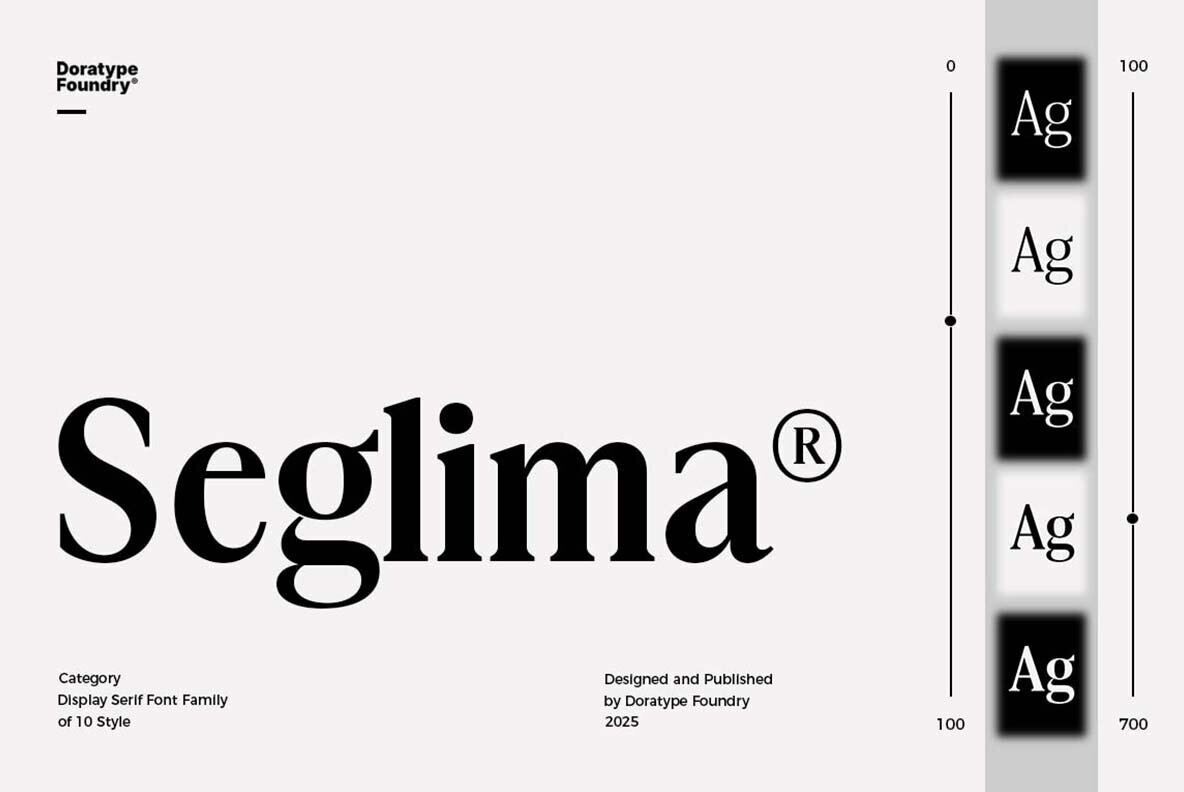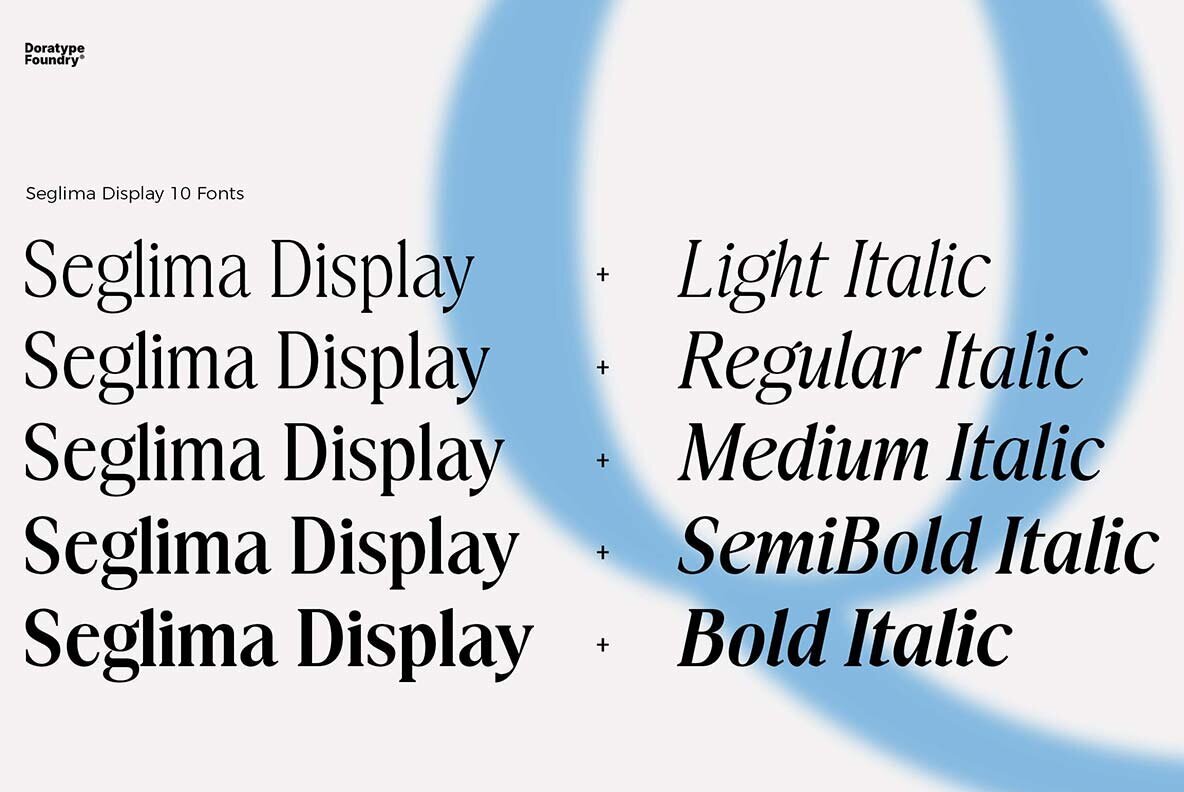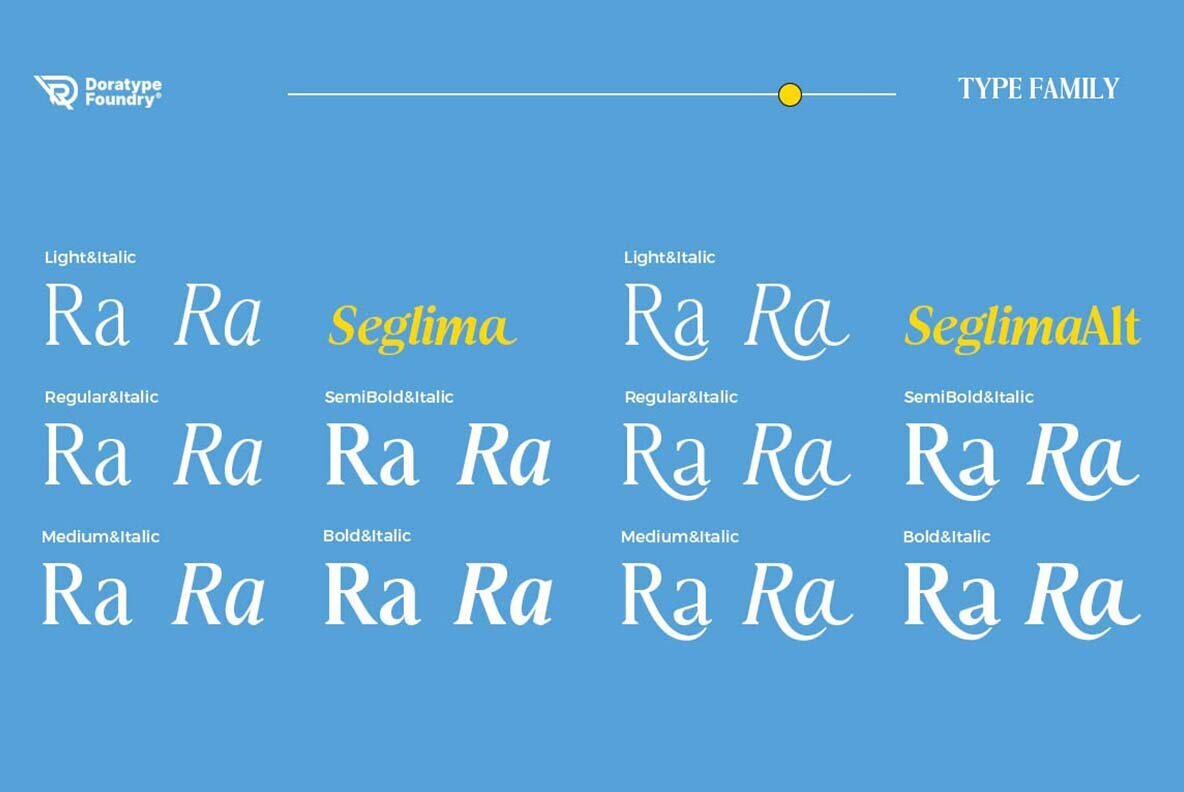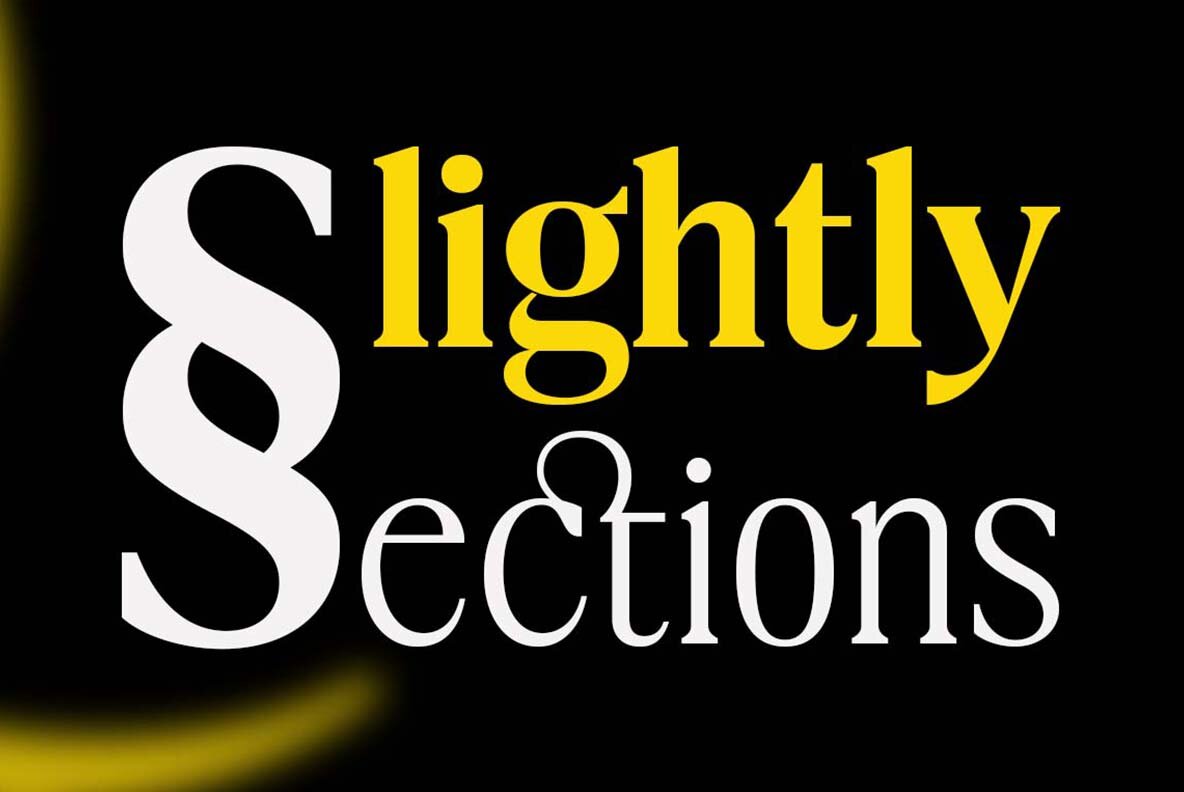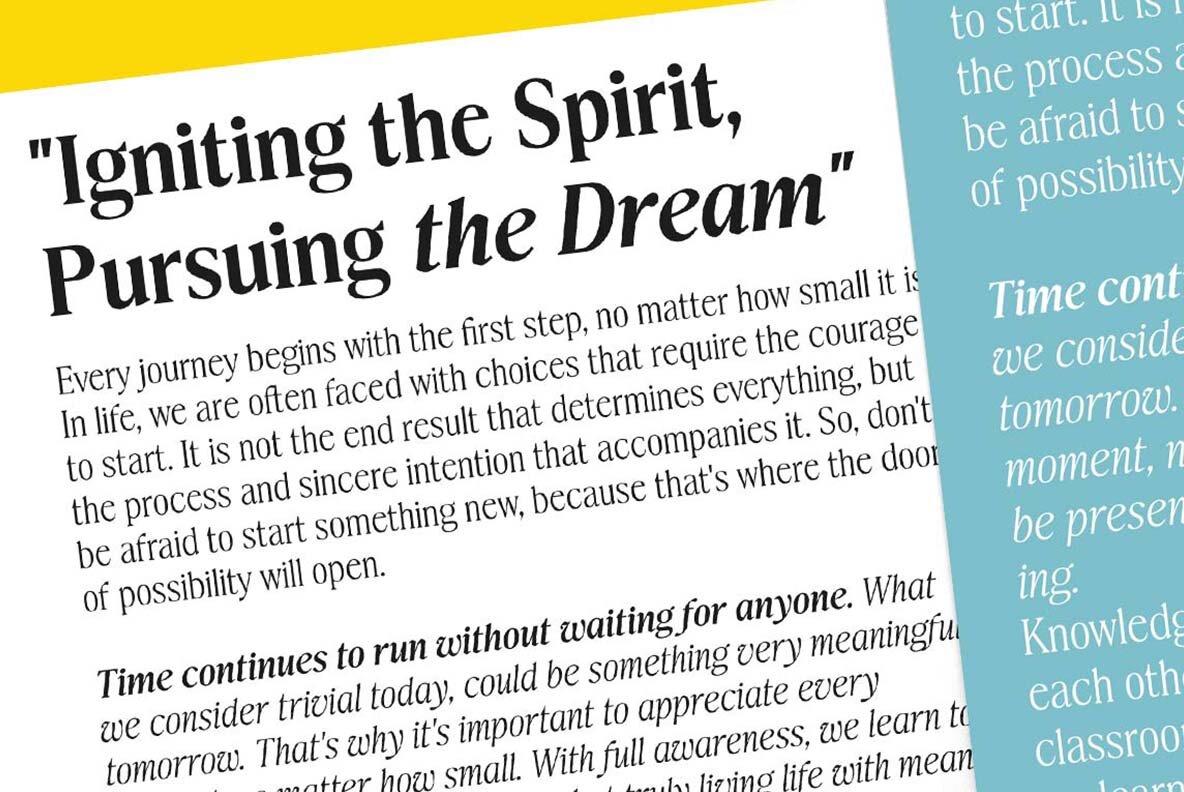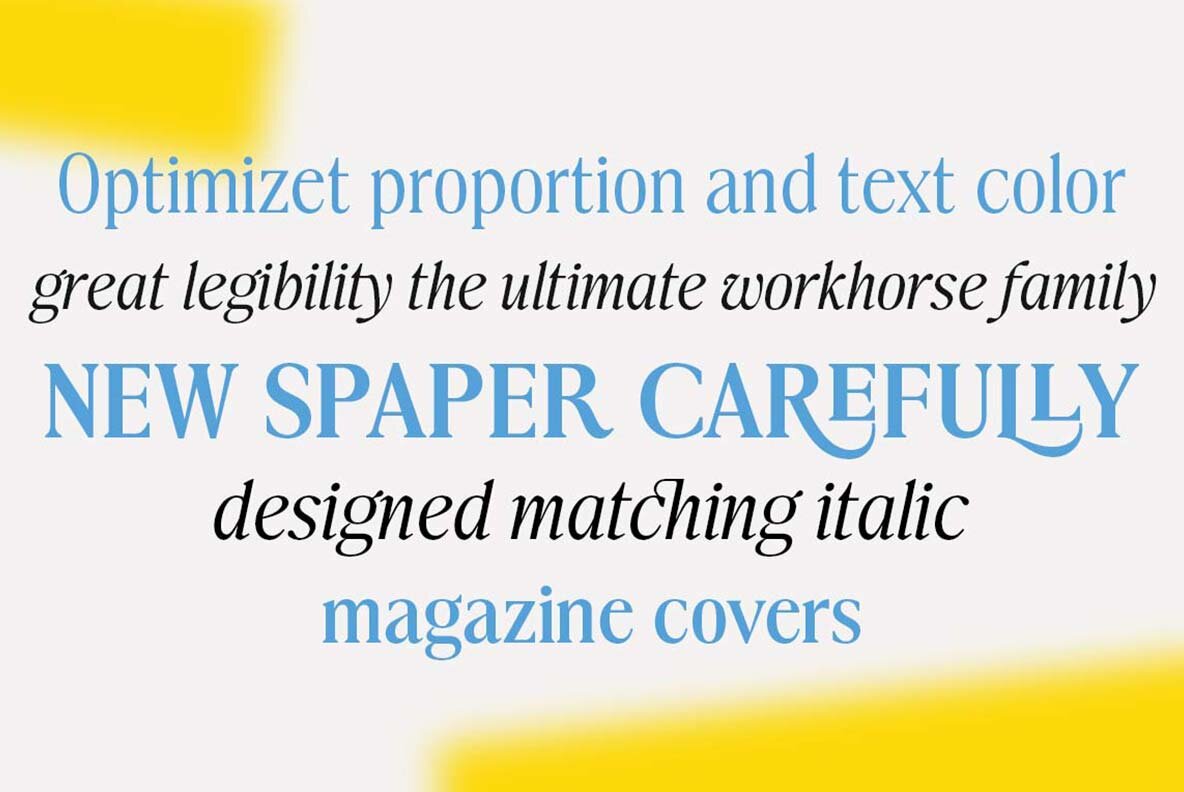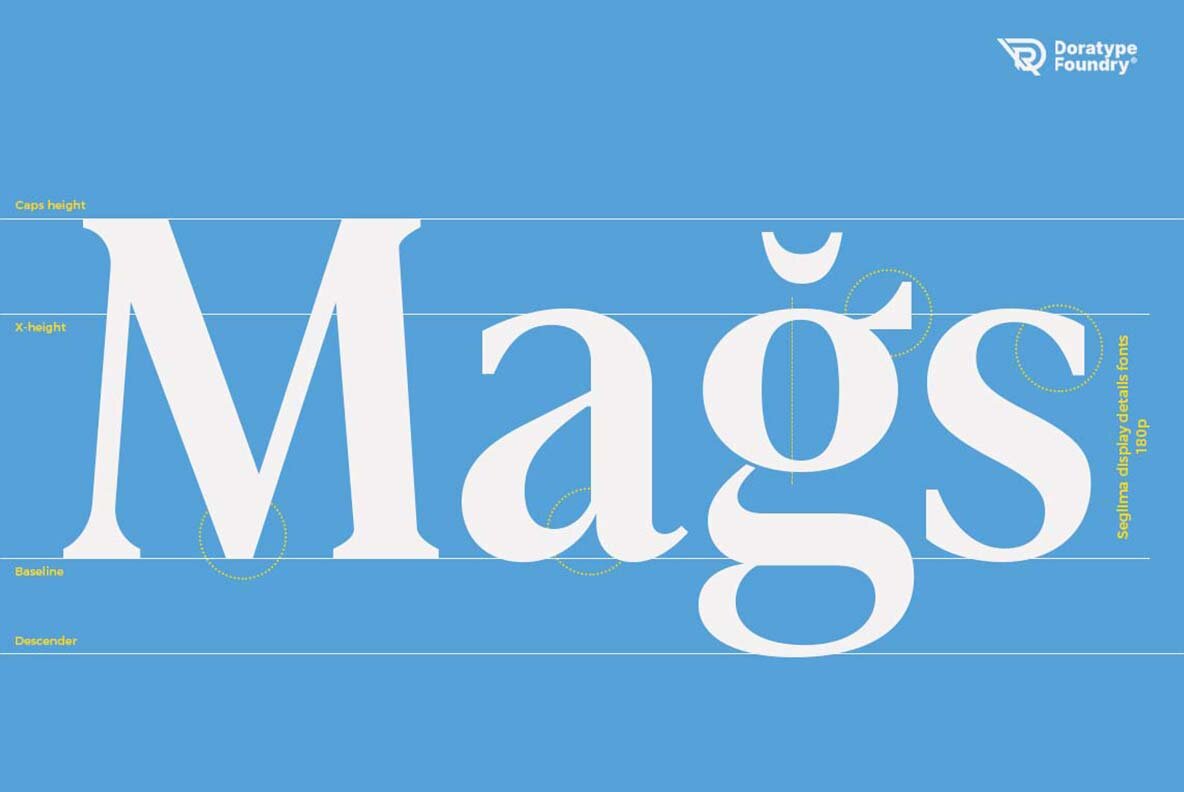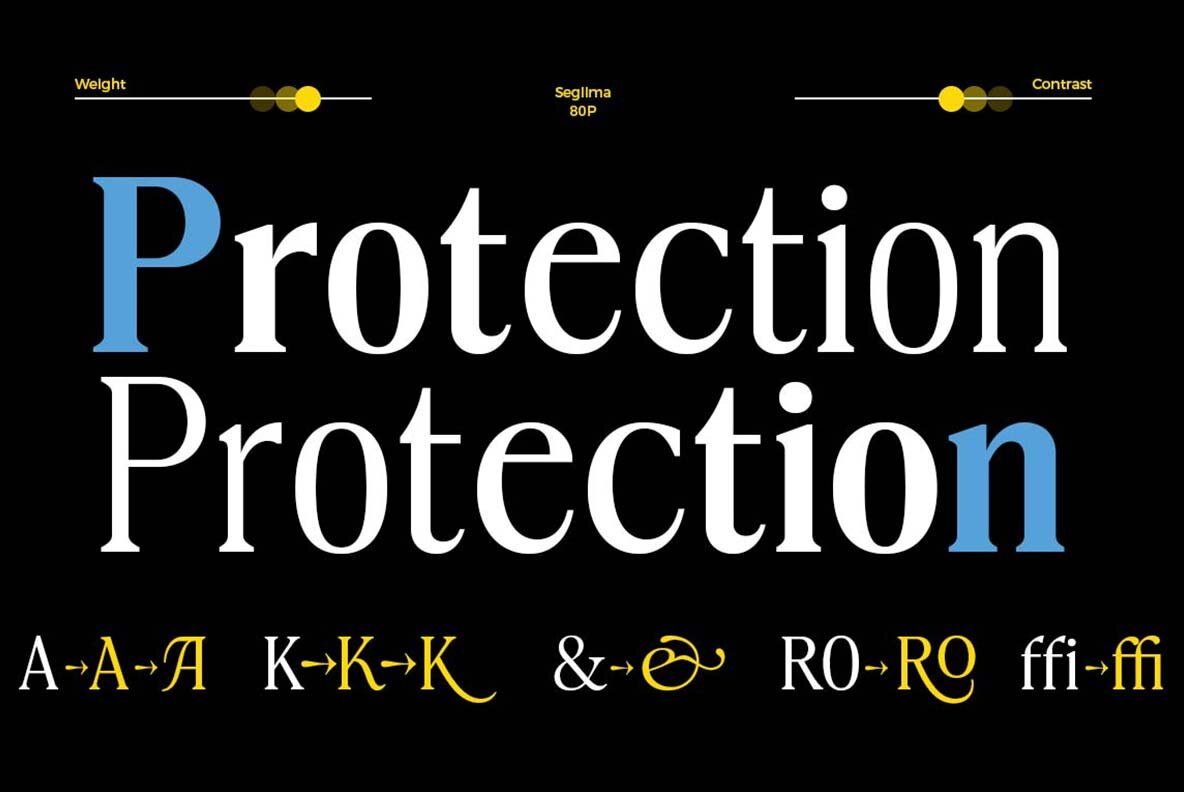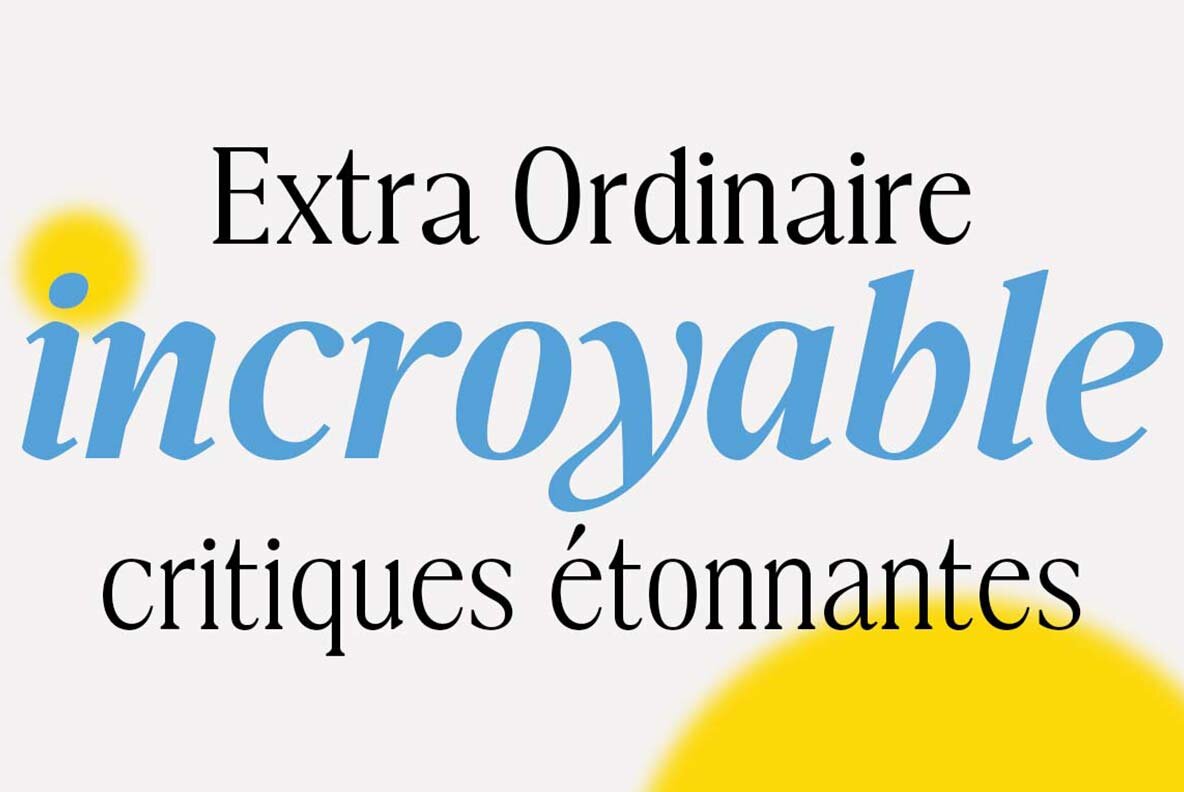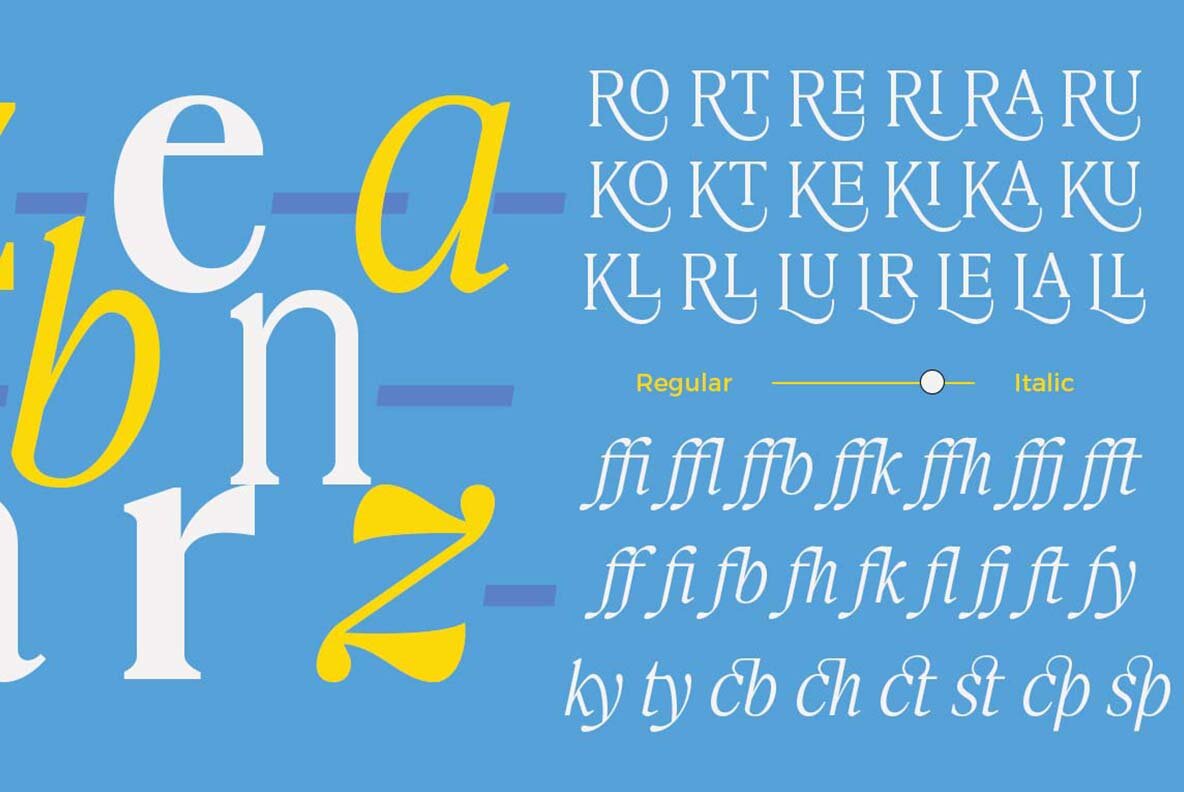
Seglima Font
Seglima stands out as a serif display font that combines elegance and boldness in every character. Its balanced letter proportions and subtle, robust serif details give it a timeless quality while maintaining a modern edge. The font features a distinctive sharp curve that enhances its unique appearance, making it an excellent choice for titles, brand identities, and editorial projects where professional aesthetics are paramount. Designed as a versatile typeface, Seglima offers a single family with 10 styles that promote flexibility in design applications. The various thicknesses and styles accommodate both minimalist and expressive layouts, offering adaptability for different design needs. This makes Seglima an ideal choice for designers seeking a harmonious blend of traditional serif allure with a sophisticated, contemporary flair.Seglima: An Elegant Serif Display Font